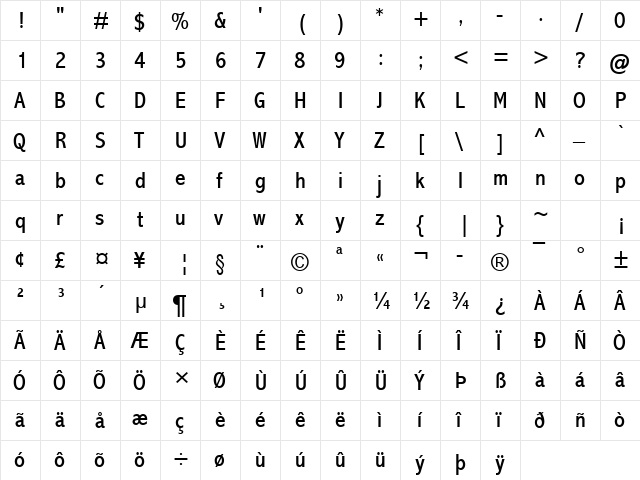
Abadi MT Condensed Regular
Design Context for Abadi MT Condensed Typeface
Abadi MT Condensed takes a measured approach to typography — its balanced proportions and neutral character make it a reliable workhorse for both digital and print work. Its narrow stance lets it pack a punch even in space-constrained designs.